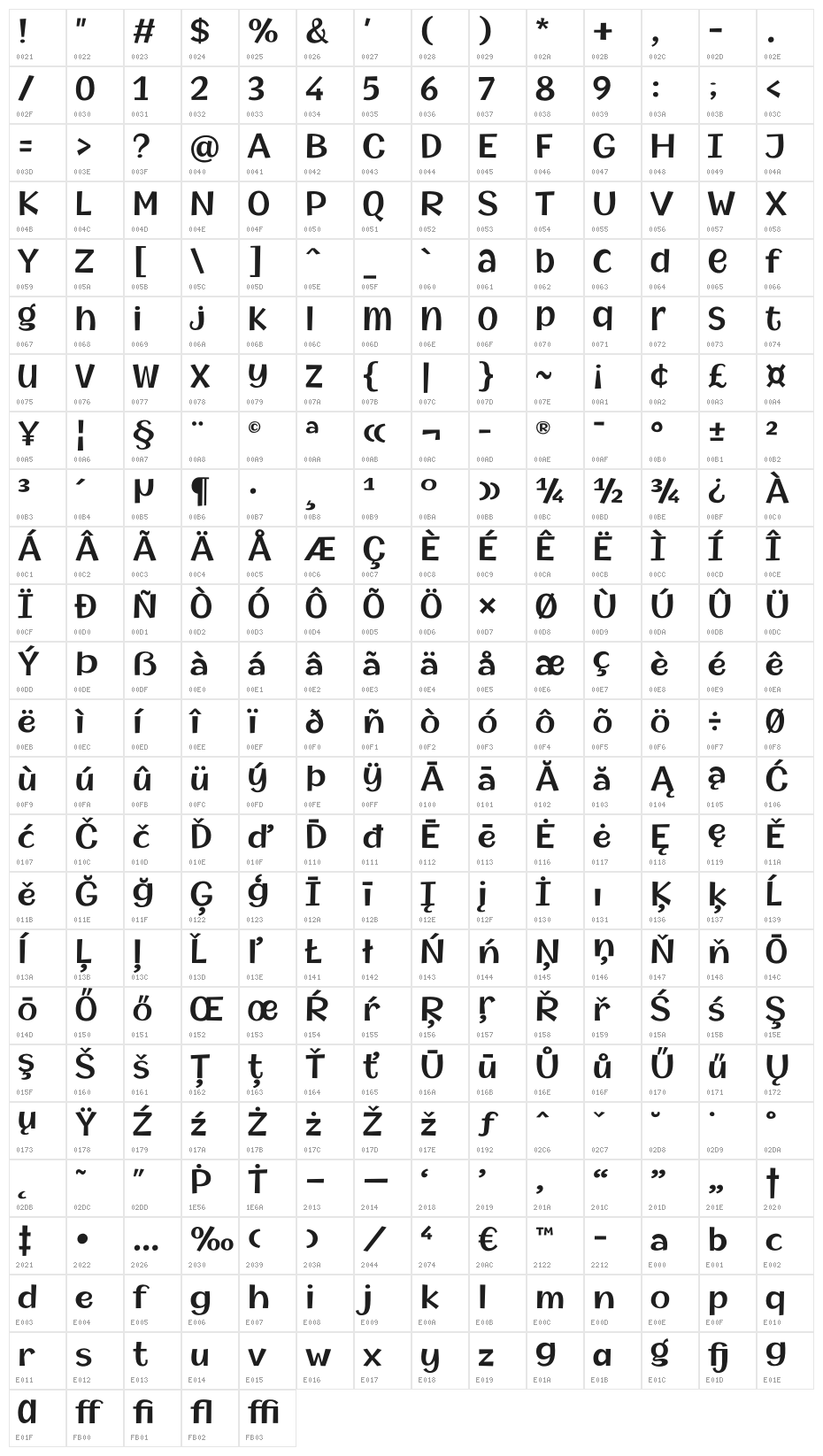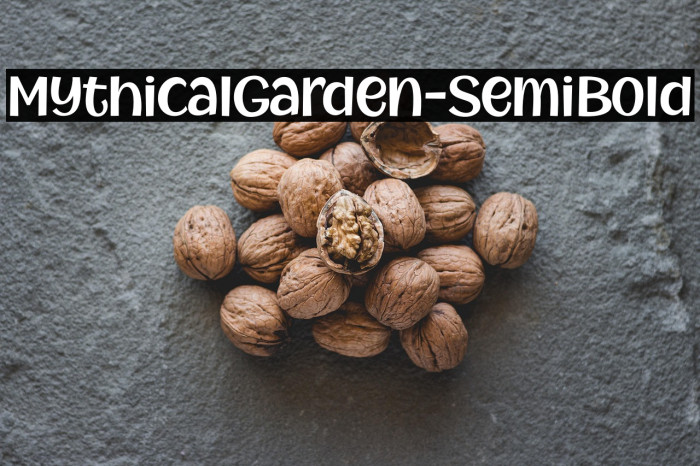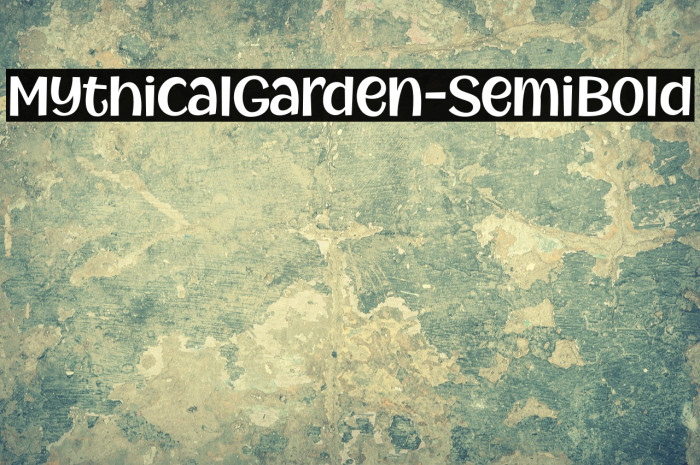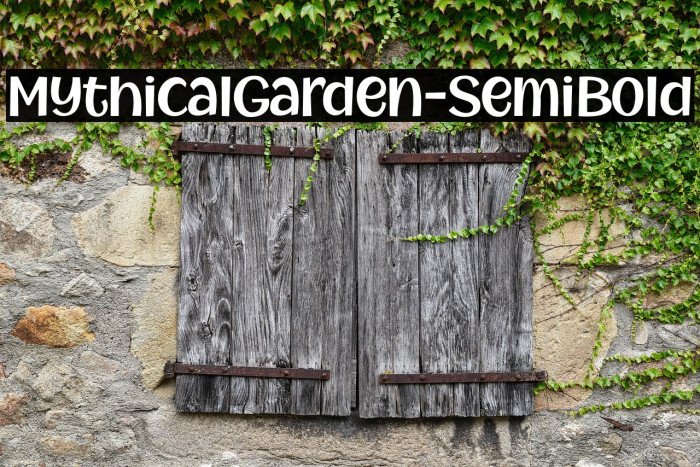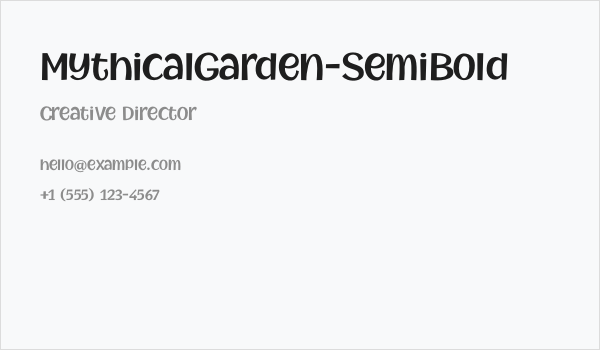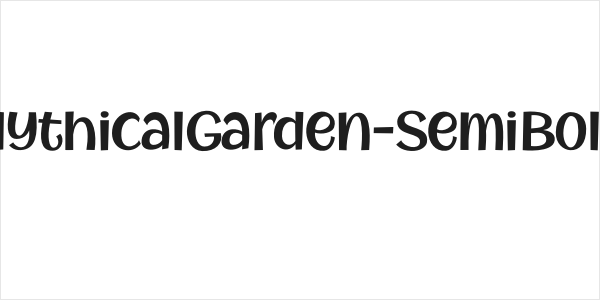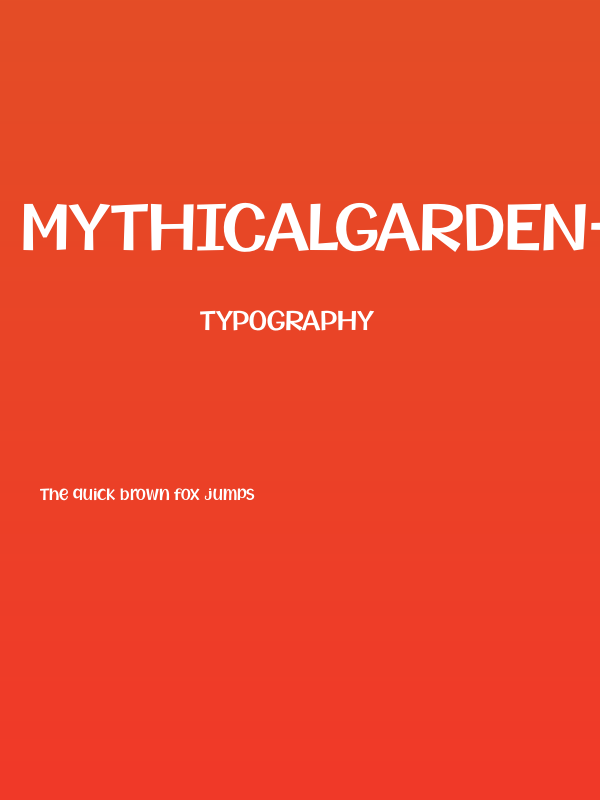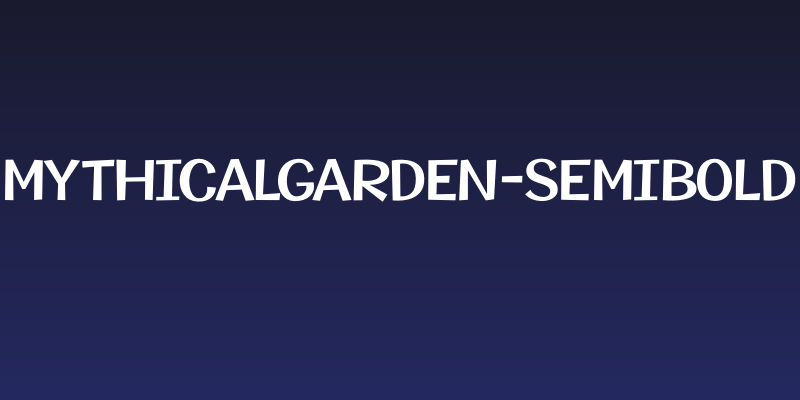
MythicalGarden-SemiBold Font
MythicalGarden-SemiBold Description
This font features a playful and whimsical design, characterized by its bold and slightly irregular letterforms. The uppercase letters exhibit a unique blend of straight and curved lines, giving them a dynamic and lively appearance. The lowercase letters maintain this playful style, with some characters having distinctive loops and curves. The numerals are bold and consistent with the overall style, ensuring readability while maintaining the font's quirky charm. Special characters are well-integrated, adding to the font's versatility. This font is ideal for projects that require a fun and engaging aesthetic.